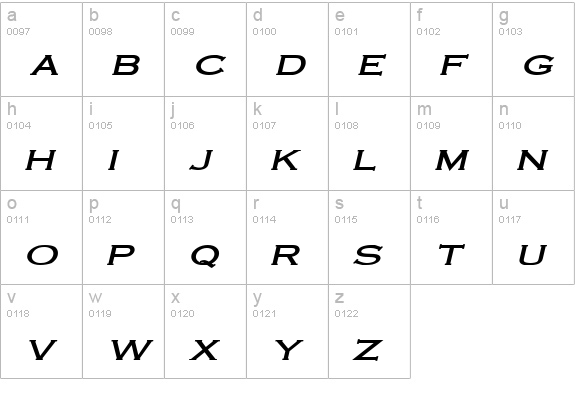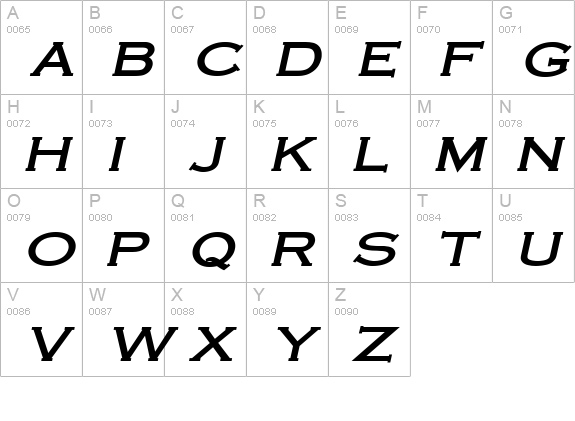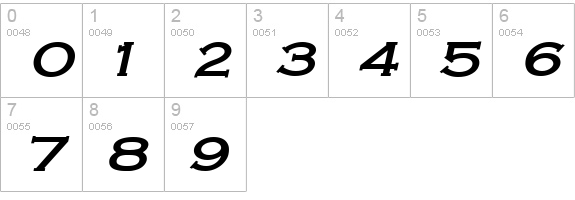
Cobalt Wide Bold Italic Font Details
Cobalt Wide Bold Italic is a strong, high-contrast, extended-width, italic variant in the Cobalt typeface family \xE2\x80\x94 well suited to headlines, attention-grabbing titles, and strong calls-to-action.
The Cobalt Wide Bold Italic font exudes a modern and sleek aesthetic with its bold yet graceful design. The striking combination of wide letterforms and intricate italics adds a touch of sophistication to any project. This versatile font is perfect for creating eye-catching headlines, logos, and brand identities that demand attention. Best of all, the Cobalt Wide Bold Italic font is available for free download at FontsMarket.com. Whether you're a designer looking to add a unique flair to your creations or a business owner seeking a distinctive typeface for your branding, this font is sure to impress. Embrace the creativity and elegance of the Cobalt Wide Bold Italic font today and elevate your design projects to new heights.